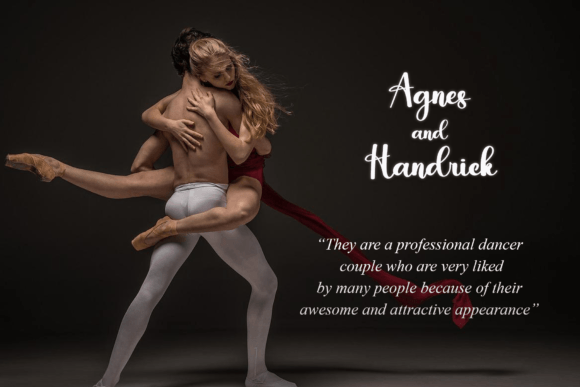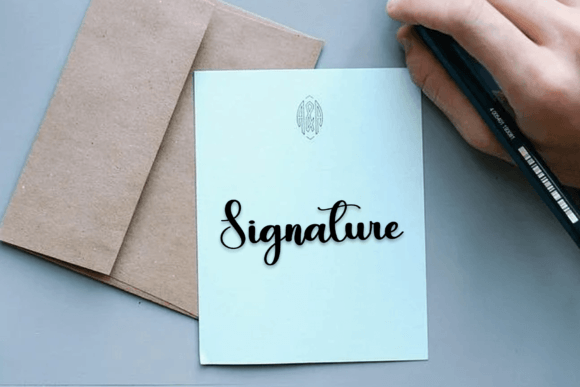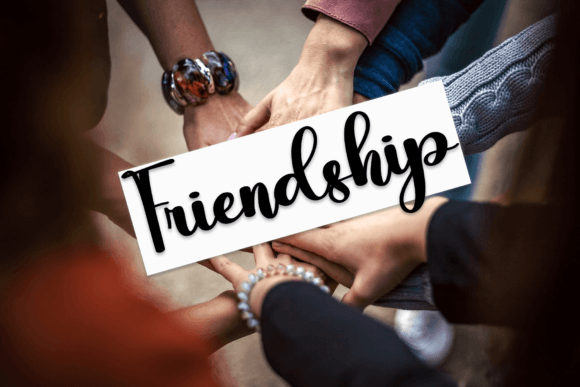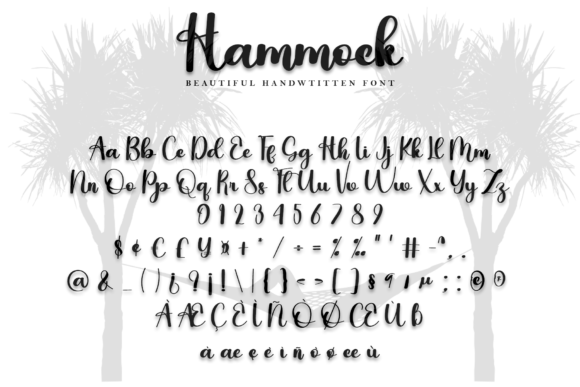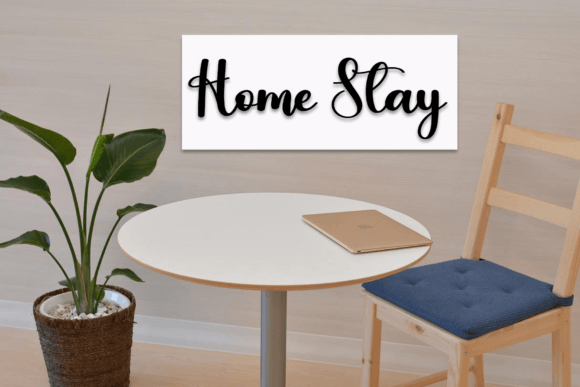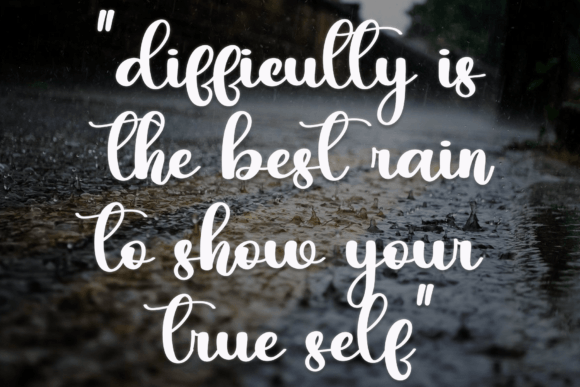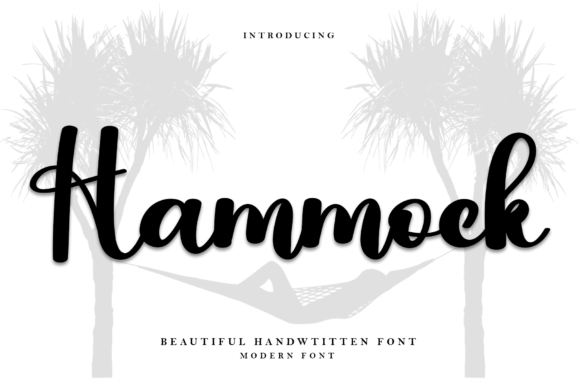
Hammock Font: Elevate Your Designs with a Delicate Handwritten Touch
Are you tired of using the same old fonts in your designs? Do you want to add a touch of elegance and uniqueness to your titles, invitations, letters, and more? Look no further than the Hammock Font! This beautiful, delicate handwritten font is carefully crafted to give your designs a cool and distinctive effect that’s sure to make them stand out.
What is Hammock Font?
Hammock Font is a carefully crafted handwritten font that’s perfect for designers and crafters looking to add a personal touch to their work. With its delicate and elegant strokes, this font is ideal for creating beautiful and eye-catching designs that exude a sense of sophistication and style.
Features of Hammock Font
- Delicate Handwritten Strokes: Hammock Font features delicate handwritten strokes that give it a unique and personal touch.
- Cool and Unique Effect: This font is carefully crafted to give your designs a cool and unique effect that’s sure to make them stand out.
- Versatile: Hammock Font can be used in a variety of designs, including titles, invitations, letters, and more.
- Elegant and Sophisticated: This font exudes a sense of elegance and sophistication, making it perfect for designers and crafters who want to create beautiful and eye-catching designs.
Uses of Hammock Font
Hammock Font is a versatile font that can be used in a variety of designs, including:
- Titles and Headings: Use Hammock Font to create beautiful and eye-catching titles and headings for your designs.
- Invitations and Cards: Add a personal touch to your invitations and cards with Hammock Font.
- Letters and Correspondence: Use Hammock Font to add a touch of elegance and sophistication to your letters and correspondence.
- Signs and Banners: Create eye-catching signs and banners with Hammock Font.
- Digital and Print Designs: Hammock Font can be used in both digital and print designs, making it a versatile font for designers and crafters.
Why Choose Hammock Font?
There are many reasons why you should choose Hammock Font for your designs. Here are just a few:
- Unique and Eye-Catching: Hammock Font is a unique and eye-catching font that’s sure to make your designs stand out.
- Elegant and Sophisticated: This font exudes a sense of elegance and sophistication, making it perfect for designers and crafters who want to create beautiful and eye-catching designs.
- Versatile: Hammock Font can be used in a variety of designs, making it a versatile font for designers and crafters.
- Easy to Read: This font is easy to read, making it perfect for designs that require a clear and concise message.
Tips for Using Hammock Font
Here are a few tips for using Hammock Font in your designs:
- Use it Sparingly: Hammock Font is a delicate font, so use it sparingly to avoid overwhelming your design.
- Pair it with Other Fonts: Pair Hammock Font with other fonts to create a unique and eye-catching design.
- Keep it Simple: Keep your design simple and clean to let Hammock Font shine.
In conclusion, Hammock Font is a beautiful and delicate handwritten font that’s perfect for designers and crafters looking to add a personal touch to their work. With its elegant and sophisticated strokes, this font is ideal for creating beautiful and eye-catching designs that exude a sense of style and sophistication. Whether you’re creating titles, invitations, letters, or more, Hammock Font is a versatile font that’s sure to make your designs stand out.